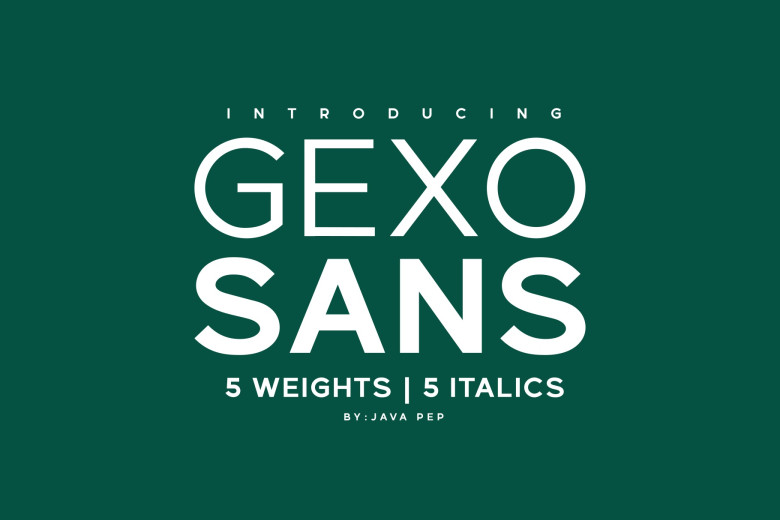
Gexo Sans Font
Gexo Sans font is our latest and stylish sans serif typeface, created to offer elegant and versatile uses in any project – ideal for posters, logotype titles, headline publications text fonts and multilingual support spanning more than 30 languages!
It comes as part of a family font with five weights and five italics to meet any design need you might have. We proudly introduce Gexo Sans with great pride! It’s time for another elegant sans serif font from our family; Gexo Sans.
Gexo Sans Serif Font